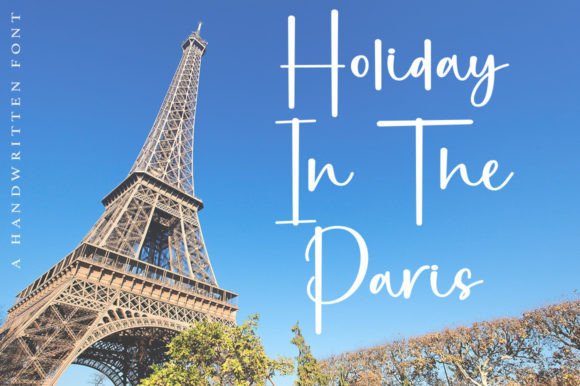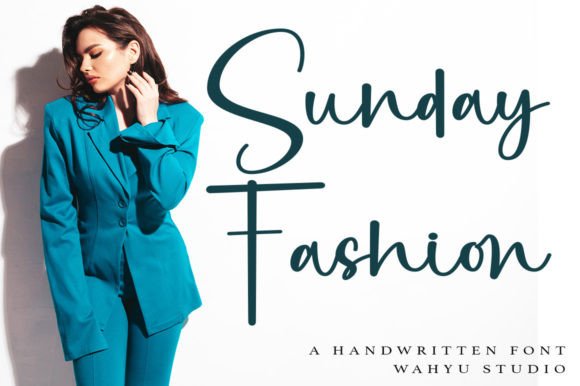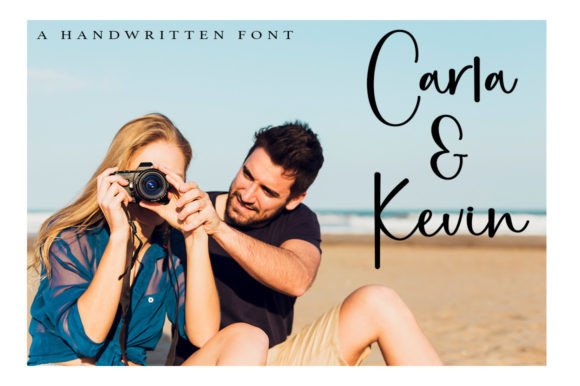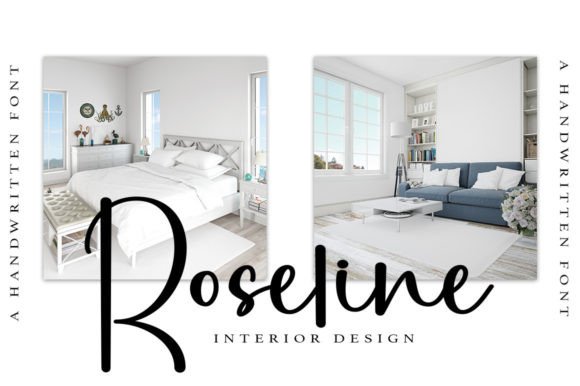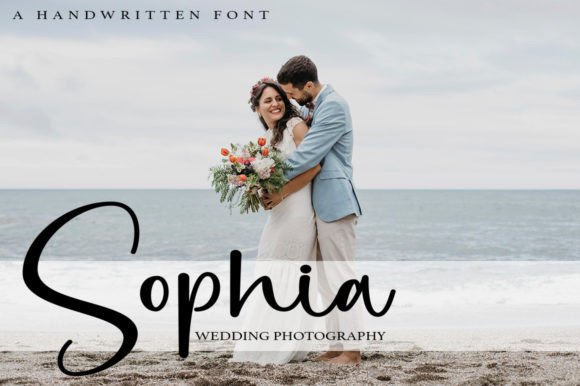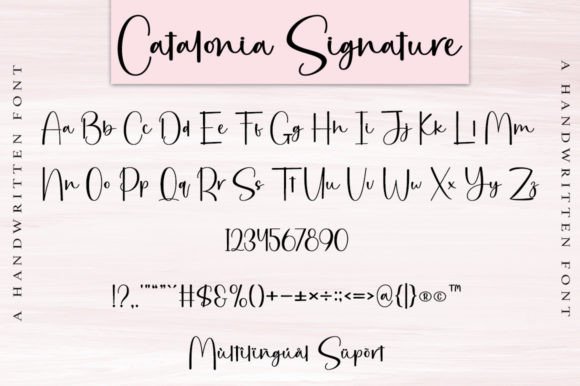
Catalonia Signature Font: Elevate Your Designs with Timeless Elegance
Are you on the hunt for a font that exudes sophistication, elegance, and a touch of whimsy? Look no further than the Catalonia Signature Font. This stunning handwritten font is perfect for designers and crafters seeking to add a personal touch to their creations. Whether you’re working on logos, wedding stationery, photography watermarks, or modern websites, Catalonia Signature is sure to make your designs shine.
A Distinct and Timeless Style
What sets Catalonia Signature apart from other fonts is its incredibly distinct and timeless style. The font’s elegant, cursive script is both classic and modern, making it versatile enough to suit a wide range of design applications. Its unique charm is sure to capture the hearts of designers and their audiences alike. With Catalonia Signature, you can create spectacular designs that are sure to leave a lasting impression.
PUA Encoded for Effortless Design
One of the standout features of Catalonia Signature is its PUA (Private Use Area) encoding. This means that you can access all glyphs and swashes effortlessly, giving you complete creative control over your designs. No more tedious searching for the perfect character or swash – with Catalonia Signature, everything you need is at your fingertips.
Ideal for a Variety of Design Applications
Catalonia Signature is an incredibly versatile font that can be used in a variety of design applications. Here are just a few ideas to get you started:
- Logos: Create a lasting impression with a custom logo that showcases your brand’s personality and style.
- Wedding Stationery: Add a touch of romance and whimsy to your wedding invitations, save-the-dates, and other stationery.
- Photography Watermarks: Protect your images with a beautiful, custom watermark that reflects your personal style.
- Modern Websites: Elevate your website’s design with a unique and elegant font that sets you apart from the crowd.
Why Choose Catalonia Signature?
So why choose Catalonia Signature over other fonts? Here are just a few reasons:
- Unique Style: Catalonia Signature boasts a truly unique and timeless style that’s sure to set your designs apart.
- Ease of Use: With PUA encoding, you can access all glyphs and swashes effortlessly, making design a breeze.
- Versatility: This font is perfect for a wide range of design applications, from logos and wedding stationery to photography watermarks and modern websites.
- Elegance: Catalonia Signature exudes elegance and sophistication, making it perfect for designers seeking to create high-end designs.
In conclusion, Catalonia Signature is a beautiful handwritten font that’s perfect for designers and crafters seeking to add a touch of elegance and whimsy to their creations. With its unique style, PUA encoding, and versatility, this font is sure to become a staple in your design toolkit. So why wait? Fall in love with Catalonia Signature and start creating spectacular designs today!
- Beautiful handwritten font
- Ideal for logos, wedding stationery, photography watermarks, modern websites, and more
- Incredibly distinct and timeless style
- PUA encoded for effortless design
- Perfect for designers and crafters seeking to create high-end designs